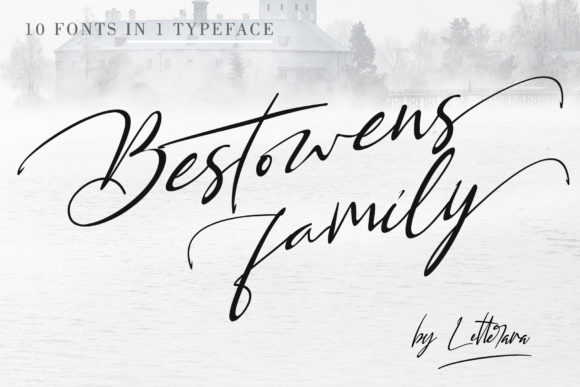
Discover the Charm of Bestowens Family Font: The Perfect Handwritten Typeface for Your Design Projects
In the world of typography, a font can make or break a design project. The right font can elevate your work, adding a touch of personality and flair that sets it apart from the rest. If you’re on the hunt for a unique and captivating handwritten font, look no further than Bestowens Family. This elegant, sweet, innocent, light, and charming typeface is sure to add a one-of-a-kind charm to any design project.
What Makes Bestowens Family Font So Special?
Bestowens Family font is a beautifully crafted handwritten typeface that exudes a sense of elegance and sophistication. Its delicate lines and curves create a soft, gentle look that’s perfect for designs that require a touch of whimsy and romance. Whether you’re working on a branding project, a wedding invitation, or a children’s book, Bestowens Family font is sure to bring a smile to your audience’s faces.
Key Features of Bestowens Family Font
- Elegant and Refined: Bestowens Family font boasts a sophisticated and elegant look that’s perfect for high-end designs.
- Sweet and Innocent: The font’s delicate lines and curves create a sweet and innocent look that’s perfect for designs that require a touch of whimsy.
- Light and Airy: Bestowens Family font is light and airy, making it perfect for designs that require a sense of freedom and playfulness.
- Charming and Unique: The font’s unique character set and stylish alternates make it a one-of-a-kind typeface that’s sure to add a touch of charm to any design project.
The Benefits of Using Bestowens Family Font
So, why choose Bestowens Family font for your design projects? Here are just a few benefits of using this beautiful handwritten typeface:
Why Choose Bestowens Family Font?
- Adds a Touch of Personality: Bestowens Family font adds a unique touch of personality to any design project, setting it apart from the rest.
- Perfect for a Variety of Designs: The font’s versatility makes it perfect for a wide range of designs, from branding and advertising to wedding invitations and children’s books.
- Easy to Read: Bestowens Family font is easy to read, even at small sizes, making it perfect for designs that require a lot of text.
- Scalable: The font is highly scalable, making it perfect for designs that require a large range of sizes.
How to Use Bestowens Family Font in Your Design Projects
Using Bestowens Family font in your design projects is easy. Here are a few tips to get you started:
Tips for Using Bestowens Family Font
- Pair it with a Bold Font: Pair Bestowens Family font with a bold font to create a striking contrast that adds visual interest to your design.
- Use it for Headings: Use Bestowens Family font for headings and titles to add a touch of elegance and sophistication to your design.
- Experiment with Colors: Experiment with different colors to find the perfect match for your design. Bestowens Family font looks great in pastel colors, bold brights, and metallics.
In conclusion, Bestowens Family font is a beautiful handwritten typeface that’s perfect for designers who want to add a touch of elegance, sweetness, and charm to their work. With its unique character set, stylish alternates, and highly scalable design, Bestowens Family font is sure to become a go-to font in your design arsenal. So why wait? Download Bestowens Family font today and start creating stunning designs that will leave a lasting impression on your audience.